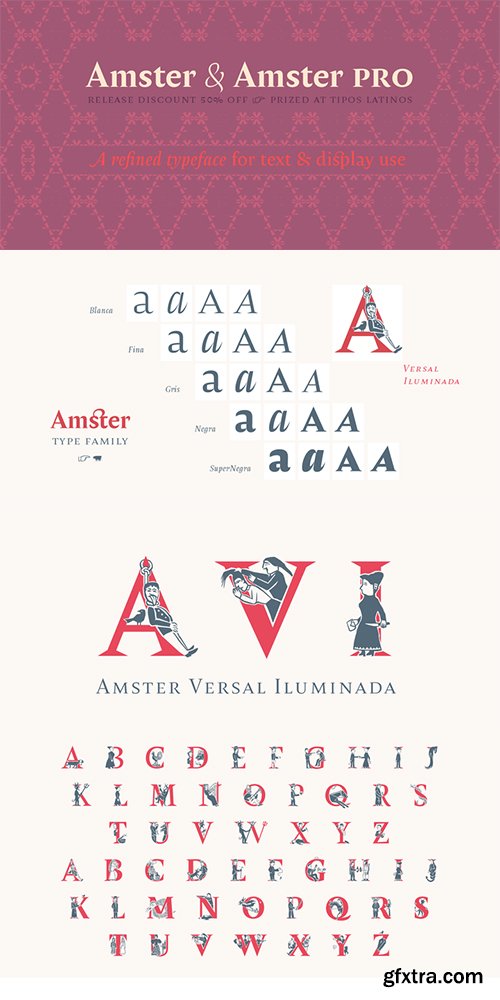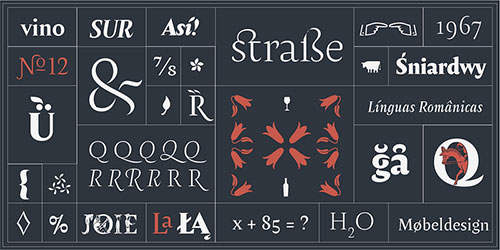
- Amster is an energetic & refined type created by Francisco Gálvez, with a sharp concept on how refinement & austerity can meet harmoniously. Amster can build a text that is highly readable and friendly. It has five weights of roman & cursive both with smallcaps and fully equipped with all OT sorts, plus 2 kinds of swashes, smart ornaments, and a wonderful set of illuminated initials. Its style makes Amster very versatile, allowing for a wide range of uses: screen to print, small text to display, science to poetry.